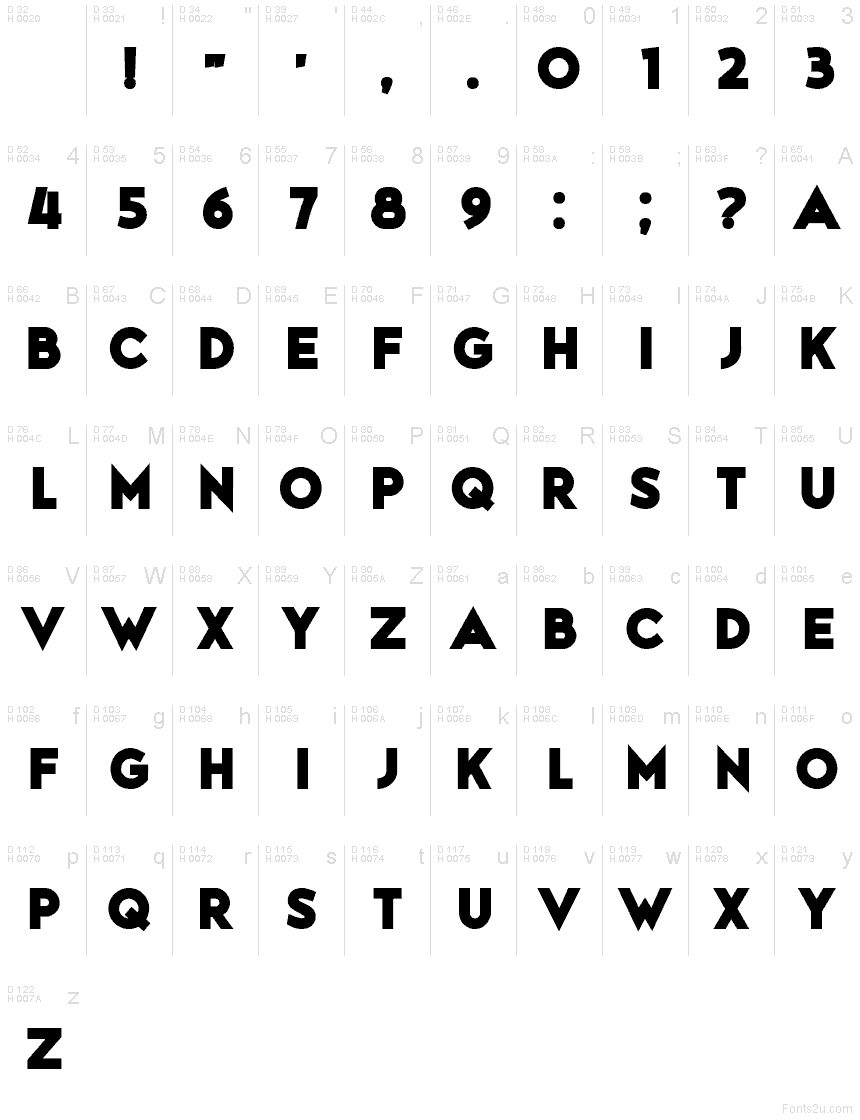
Linzer Augen Bold
Linzer Augen Bold font by Vladimir Nikolic is a free bold sans serif typeface that hits like a black ink stamp: thick, blocky, and impossible to miss. The broad strokes, tight spacing, and sharp diagonal cuts give each word a compact, poster-ready punch, while the simple geometry keeps it clean and modern rather than cartoonish. It feels sturdy and confident, like lettering chiseled from solid stone.
Using Linzer Augen Bold, your headlines don’t just sit on the page—they occupy it. This free font shines on bold posters, logos, product packaging, sports branding, album covers, and social media graphics where a single word needs to carry the whole message. Set it large, keep words short, and pair it with a light, unobtrusive sans for smaller copy to let Linzer Augen Bold do the heavy lifting.